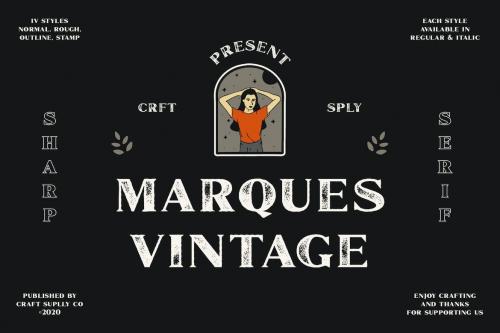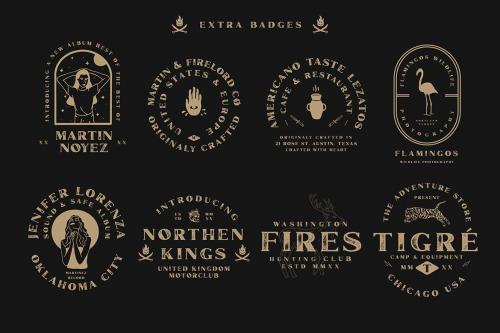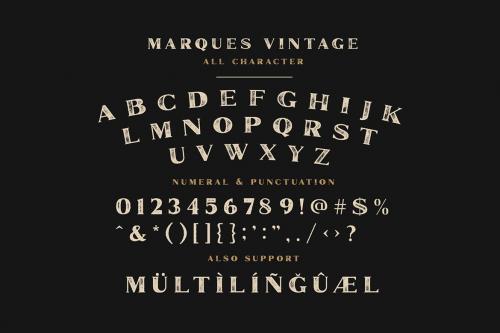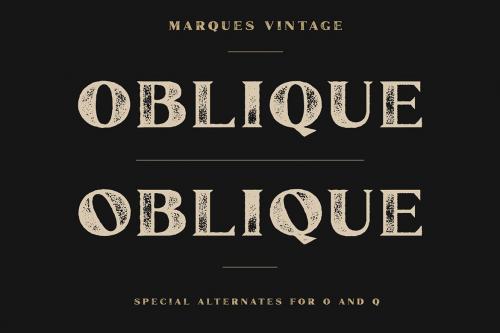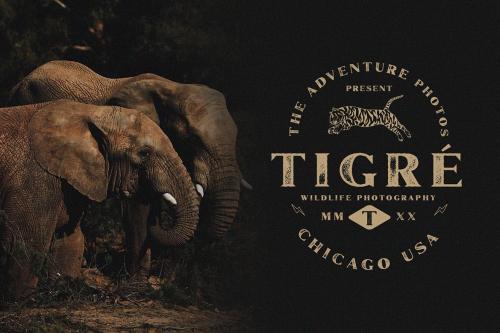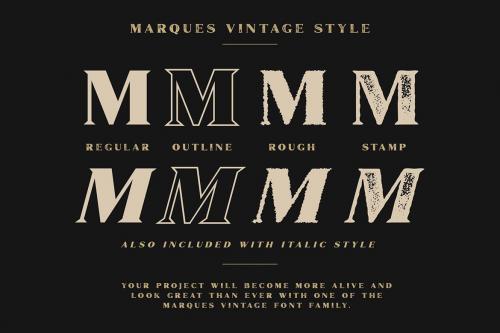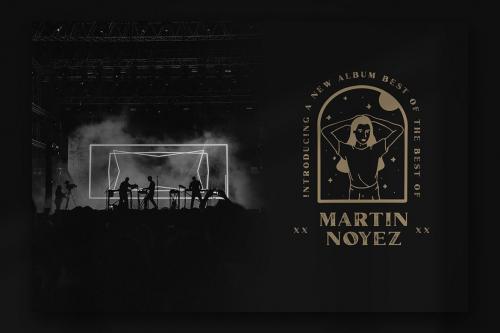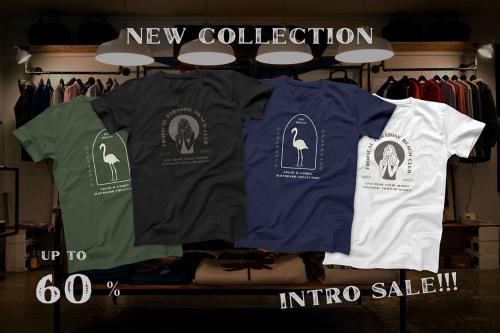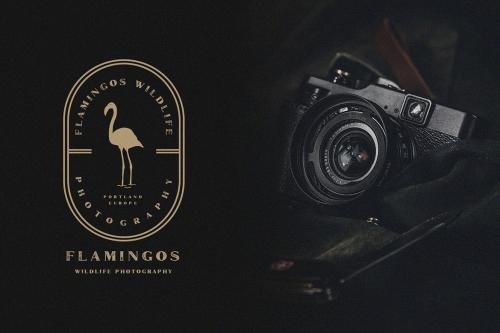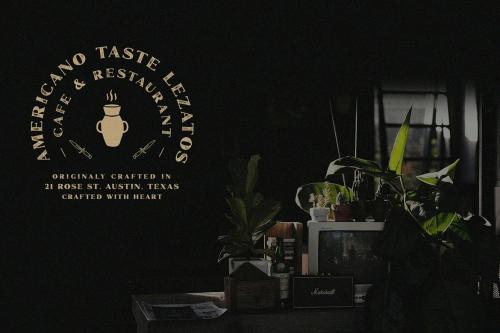
**Introducing Marques Vintage Font Family.** It can be used to create almost all types of design projects like print materials. Just use your imagination and some graphic design, your project will become more alive and look great than ever with one of the Marques Vintage Font.
You want to make a greeting card or a package design, or even a brand identity, craft design, any DIY project, book title, wedding font, pop vintage design, retro design or any purpose to make your art / design project look pretty and trendy? Feel free to play with all style of this font!